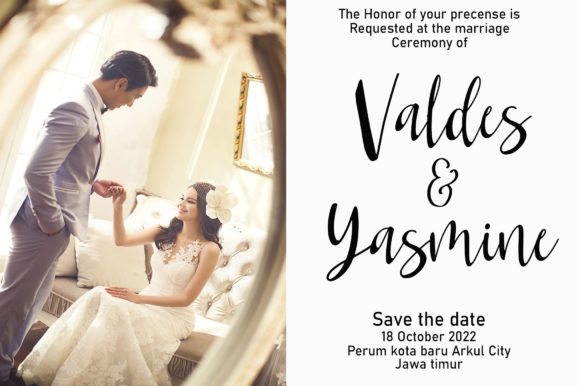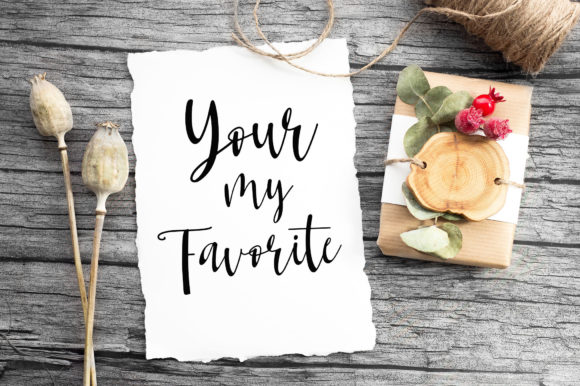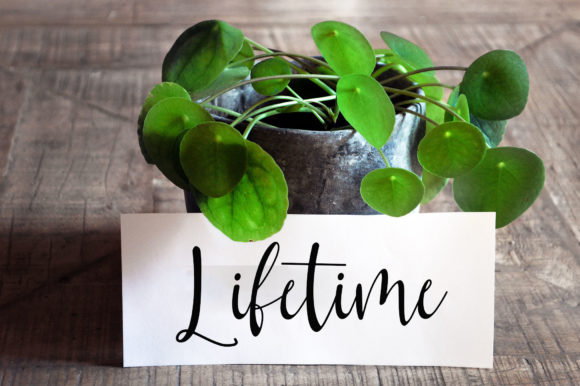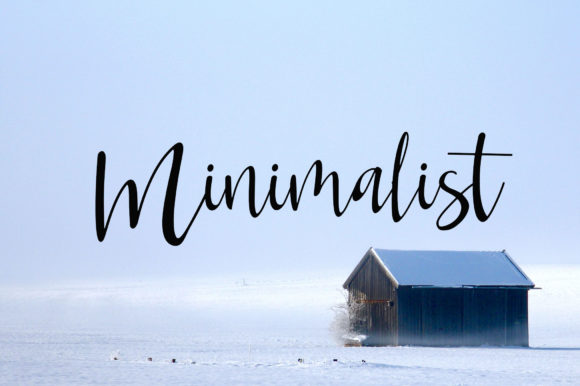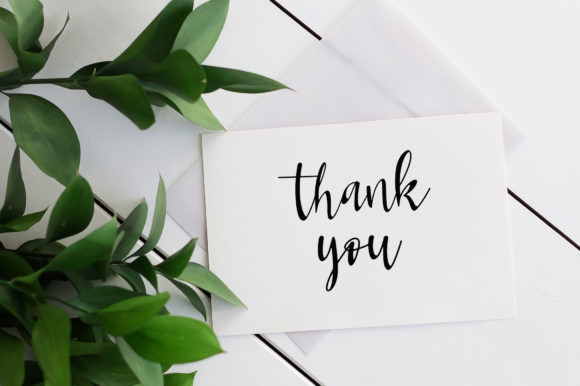
Introducing Autography Font: The Ultimate Romantic Calligraphy Typeface
Are you a designer or crafter looking for a font that adds a touch of luxury and romance to your design projects? Look no further than Autography Font! This beautiful calligraphy typeface is designed to make your designs stand out with its unique and elegant character set. In this article, we’ll dive deeper into the features and benefits of Autography Font and explore how it can elevate your design projects.
What is Autography Font?
Autography Font is a romantic and sweet calligraphy typeface that features characters that dance along the baseline. This distinctive design element gives Autography Font its unique charm and makes it perfect for designs that require a touch of elegance and sophistication. Whether you’re working on a wedding invitation, a branding project, or a packaging design, Autography Font is sure to add a luxury spark to your work.
Key Features of Autography Font
- Romantic and Sweet Design: Autography Font features a romantic and sweet design that’s perfect for designs that require a touch of elegance and sophistication.
- Unique Character Set: The font features characters that dance along the baseline, giving it a unique and distinctive look.
- Luxury Spark: Autography Font is designed to add a luxury spark to any design project, making it perfect for high-end branding and design projects.
- Calligraphy Typeface: Autography Font is a calligraphy typeface that’s perfect for designs that require a touch of elegance and sophistication.
Benefits of Using Autography Font
So, why should you choose Autography Font for your design projects? Here are just a few benefits of using this beautiful calligraphy typeface:
- Adds Elegance and Sophistication: Autography Font adds a touch of elegance and sophistication to any design project, making it perfect for high-end branding and design projects.
- Unique and Distinctive Look: The font’s unique character set gives it a distinctive look that sets it apart from other fonts.
- Perfect for Romantic Designs: Autography Font is perfect for designs that require a romantic and sweet touch, such as wedding invitations and love letters.
Tips and Tricks for Using Autography Font
Here are some tips and tricks for using Autography Font:
- Use it Sparingly: Use Autography Font sparingly to add a touch of elegance and sophistication to your design.
- Pair it with Other Fonts: Pair Autography Font with other fonts to create a unique and interesting design.
In conclusion, Autography Font is a beautiful calligraphy typeface that’s perfect for designers and crafters looking to add a touch of luxury and romance to their design projects. With its unique character set and elegant design, Autography Font is sure to make your designs stand out. Whether you’re working on a wedding invitation, a branding project, or a packaging design, Autography Font is the perfect choice.